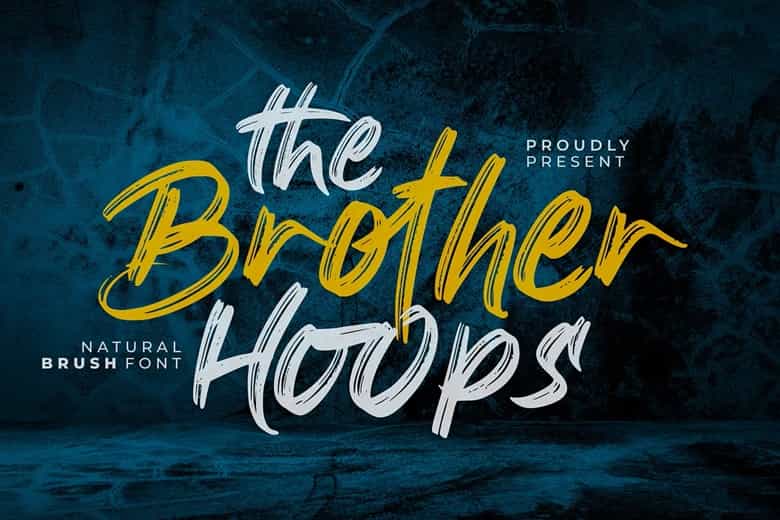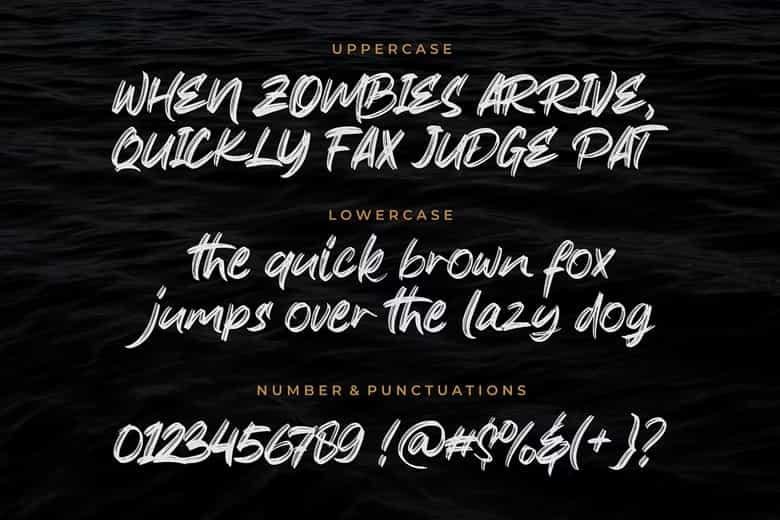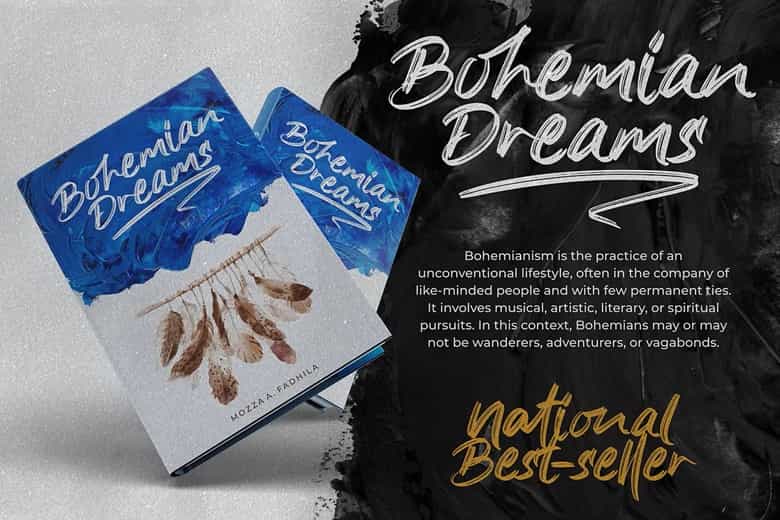
The Brother Hoops Font
Brother Hoops is a bold, hand drawn brush script font with a combination of beautiful curves and a new urban city feel; brining a trendy brush font that will definitely bring an urban-chic feel to your logo designs, brand visuals, handwritten quotes, products packaging and merchandising, social media post, or by making it your font on the web cyber space.